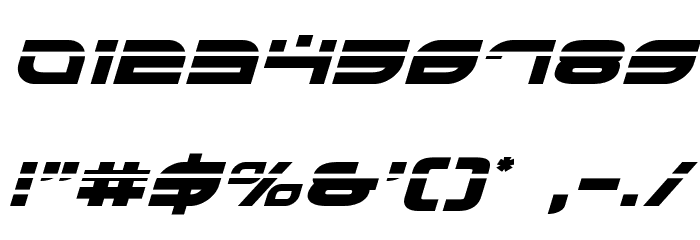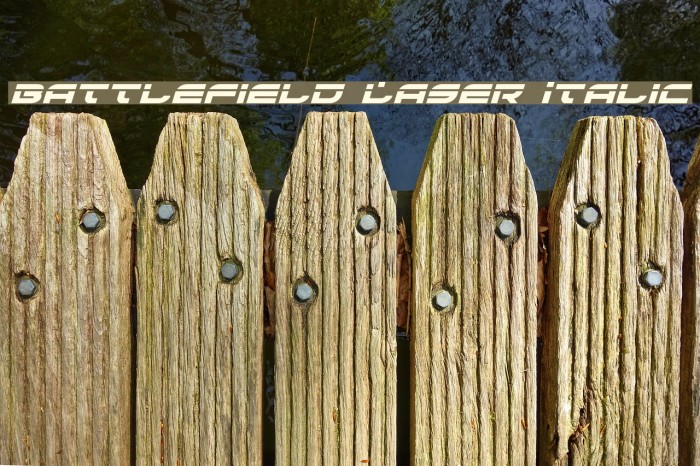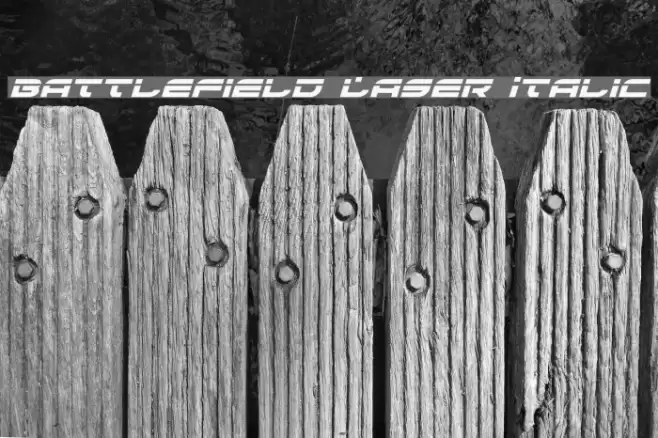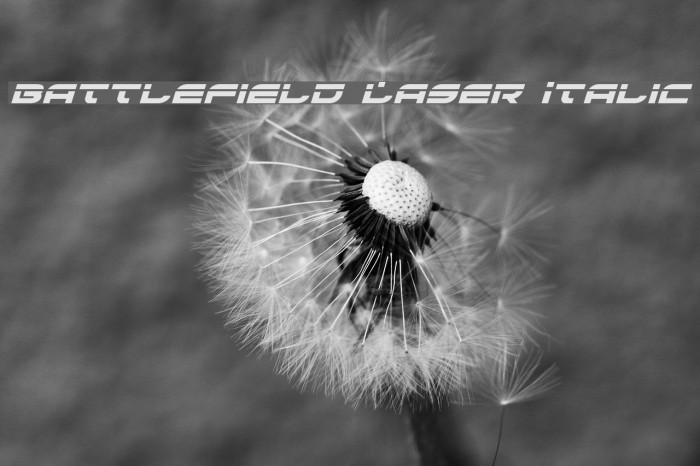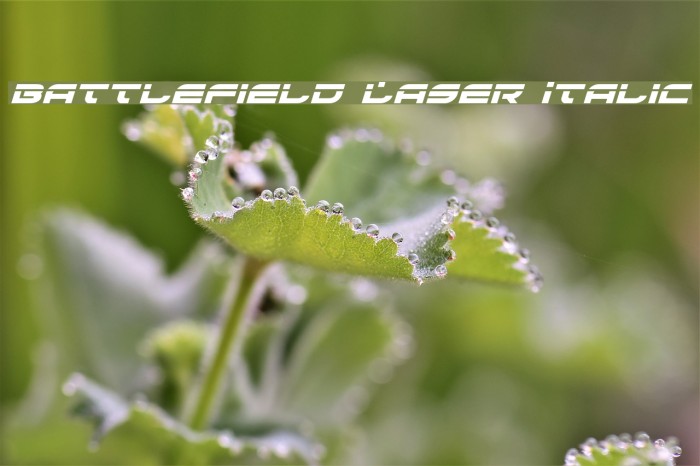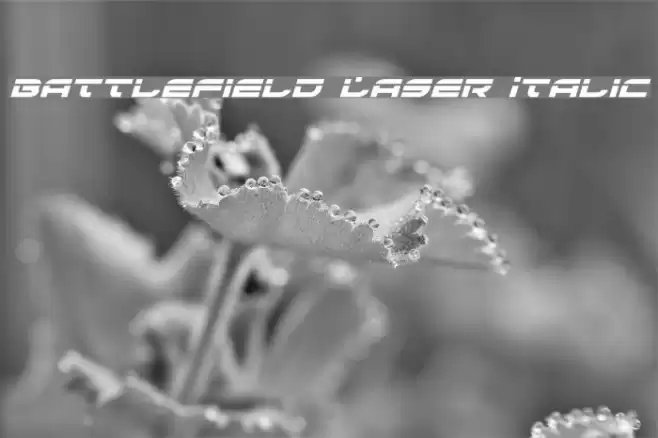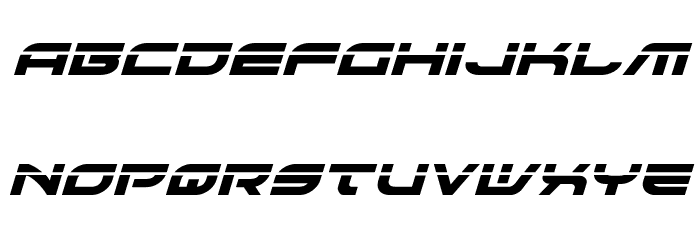
Battlefield Laser Italic Font
This font features a futuristic and dynamic design, characterized by sharp angles and a slanted, italicized style that suggests movement and speed. The letters are bold and have a distinct geometric structure, with some characters incorporating unique cutouts and lines that enhance its modern aesthetic. The numbers and special characters maintain this cohesive style, making it suitable for projects that require a tech-savvy and edgy look. Its bold presence and unique design elements make it stand out, while the italic slant adds a sense of urgency and action.
A bold, italicized font with a futuristic and dynamic design.
• Proposed Projects: Ideal for video game titles, tech branding, sci-fi movie posters, and sports team logos.